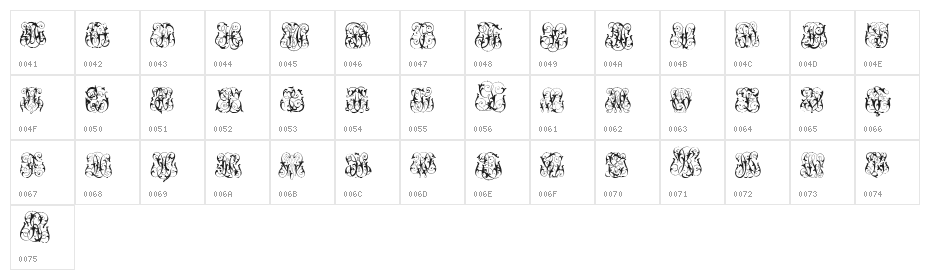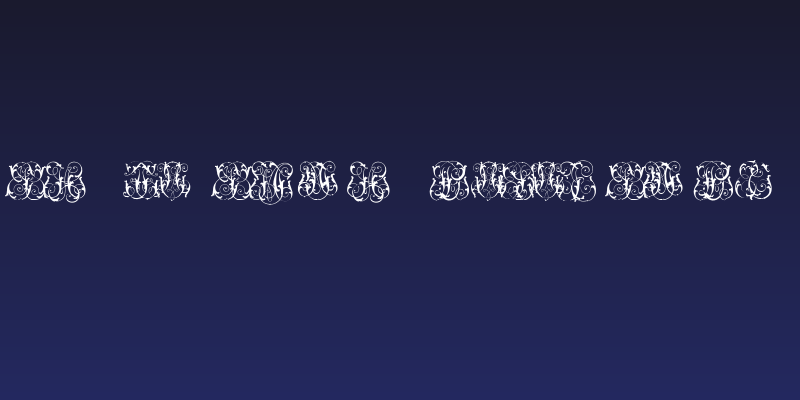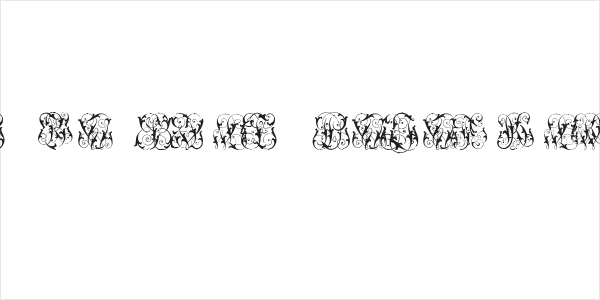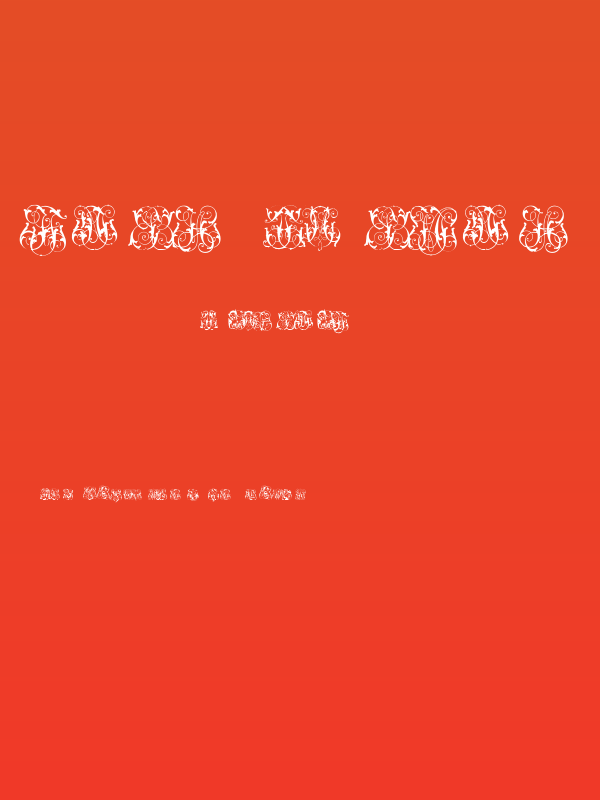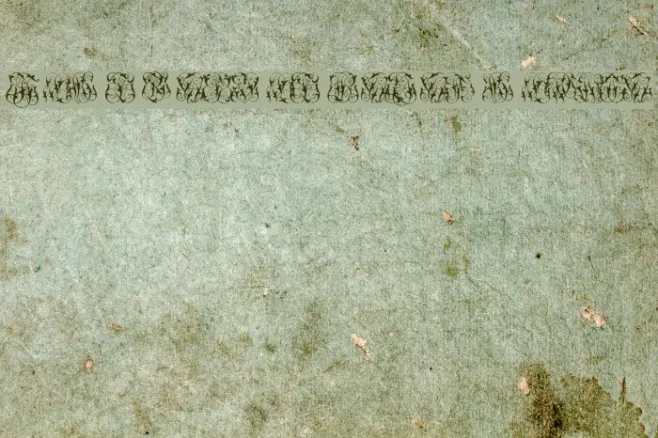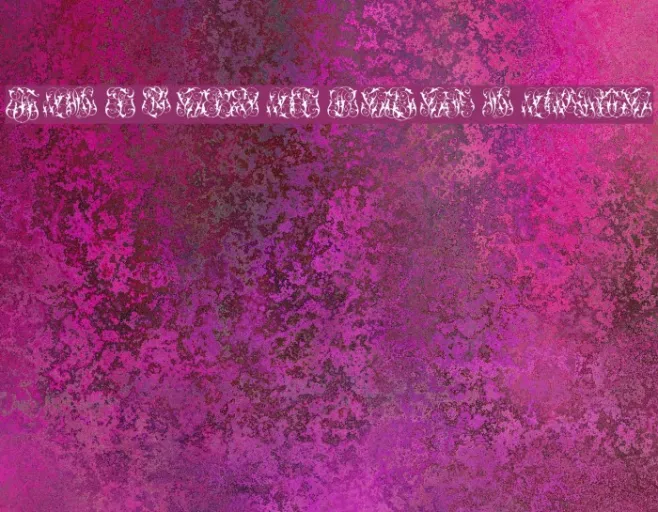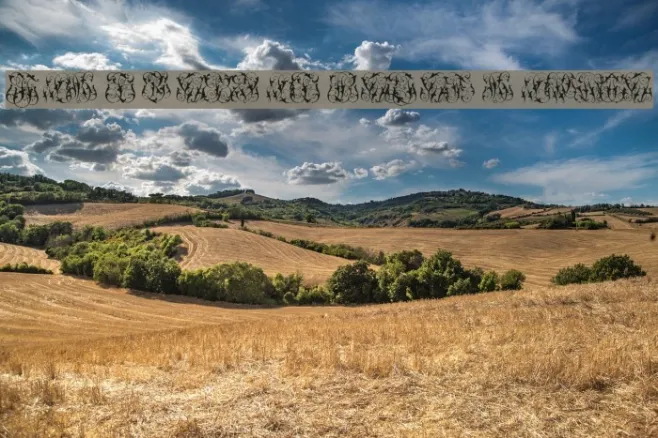
Hard to Read Monograms Two Font
Hard to Read Monograms Two Description
This font is an intricate and highly decorative style, characterized by elaborate swirls and flourishes that intertwine with each letterform. The design is reminiscent of traditional monogram styles, often used for luxurious branding or formal invitations. Each character is crafted with a high level of detail, making it both unique and challenging to read at smaller sizes. The ornate nature of the font suggests a historical or vintage influence, suitable for projects that require a touch of elegance and sophistication. Its complexity and artistic flair make it stand out, though it may not be suitable for body text due to its readability challenges.
| Use Case | Logos, Invitations, Decorative headings |
| Proposed Projects | Ideal for wedding invitations, luxury branding, monograms, and decorative headings. |